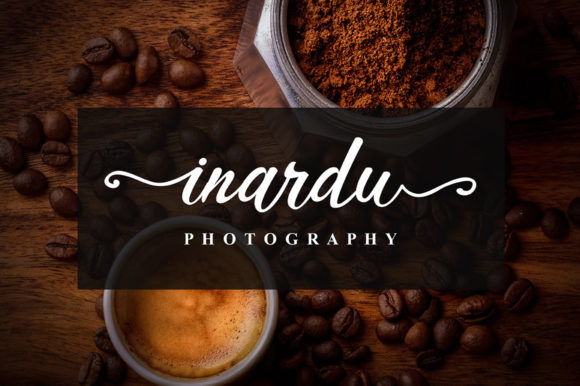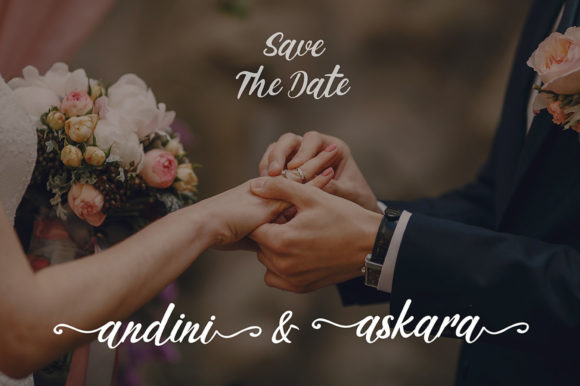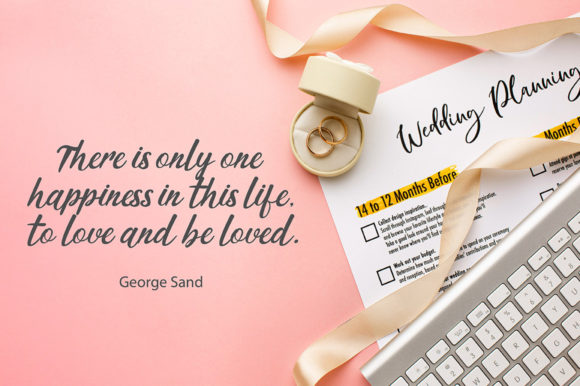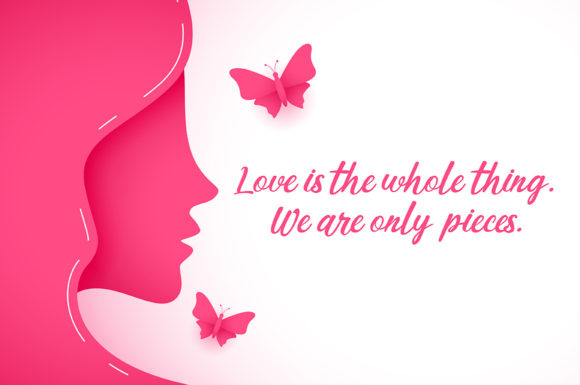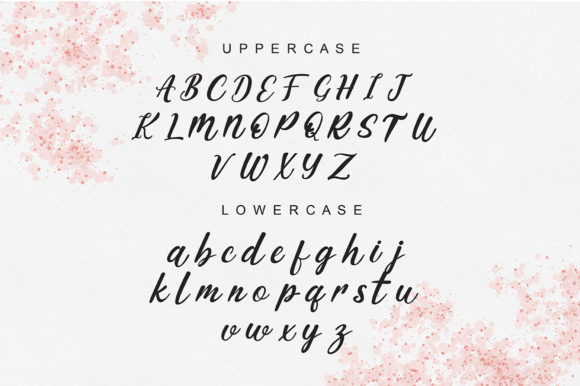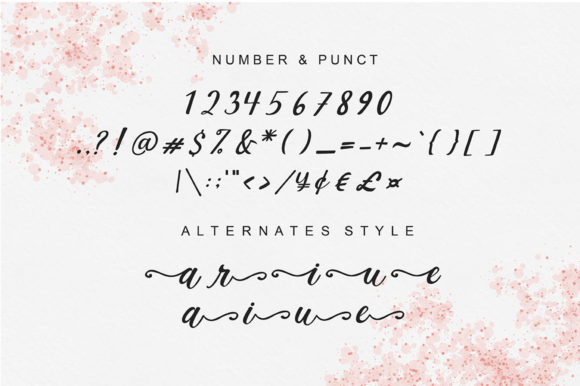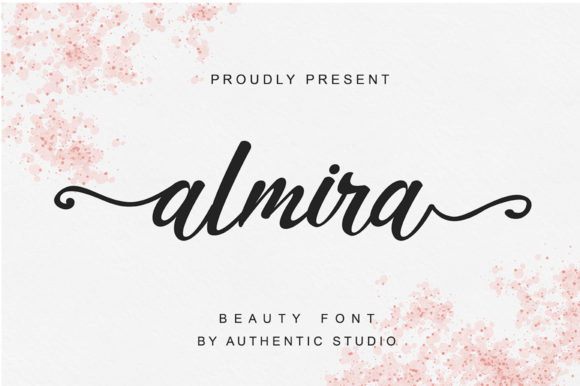
The Almira Font: A Lovely Script Font to Elevate Your Designs
I’ll never forget the time I was working on a project for a client who wanted a elegant, yet playful font to match their brand’s personality. I spent hours scouring the internet for the perfect font, but nothing seemed quite right. That was until I stumbled upon the Almira font. This lovely script font has since become a staple in my font library, and I’m excited to share its beauty with you.
A Personal Review of Almira Font
• ✨ Neatly crafted and highly detailed: Almira’s intricate design makes it perfect for projects that require a touch of sophistication.
• ✅ Versatile: Whether you’re working on a wedding invitation, a fashion brand, or a food blog, Almira adapts seamlessly to any topic.
• 💫 Elegant swashes: The font’s beautiful swashes add a touch of luxury to any design.
While Almira is an amazing font, there are a few things to keep in mind:
• ⚠️ Legibility at small sizes: Like many script fonts, Almira can be a bit tricky to read at very small sizes. Make sure to test it at different sizes to ensure it’s legible for your project.
• 🤔 Pairing with other fonts: Almira is a bold font, so it can be challenging to pair with other fonts. Experiment with different combinations to find the perfect match.
The Story Behind Almira Font
Almira was designed by a team of typographers who wanted to create a font that would evoke the feeling of elegance and sophistication. Inspired by classic calligraphy, Almira features intricate details and beautiful swashes. The font’s name, Almira, is derived from the Spanish word for “princess,” which reflects its regal and refined personality.
Font Name Almira Font
Author Authentic Studio
Q: Is Almira a difficult font to read?
A: Like many script fonts, Almira can be a bit challenging to read at very small sizes. However, it’s generally a clear and legible font that works well for body text.